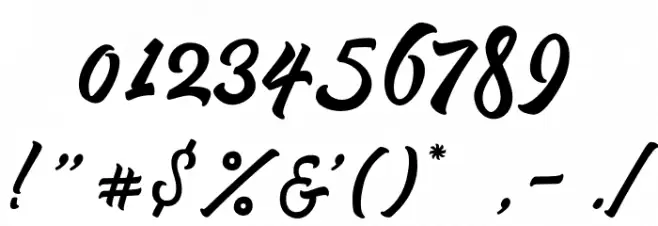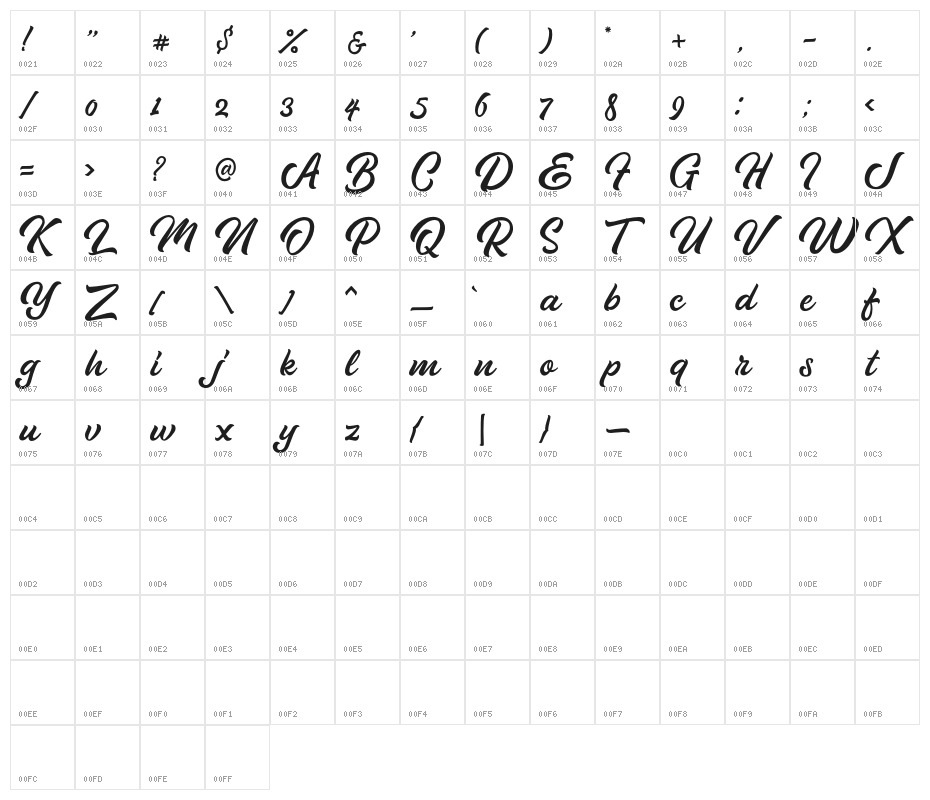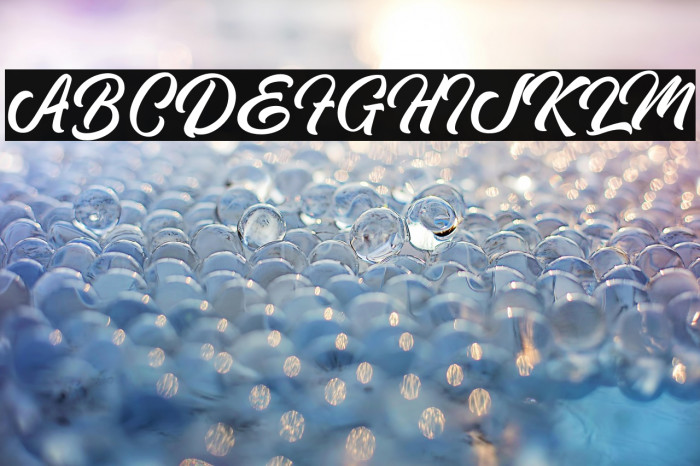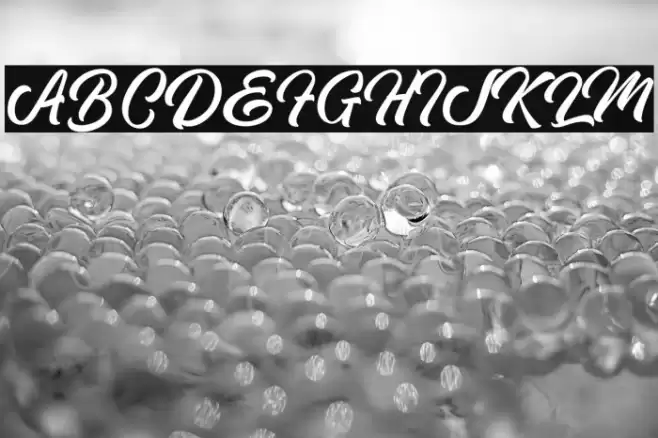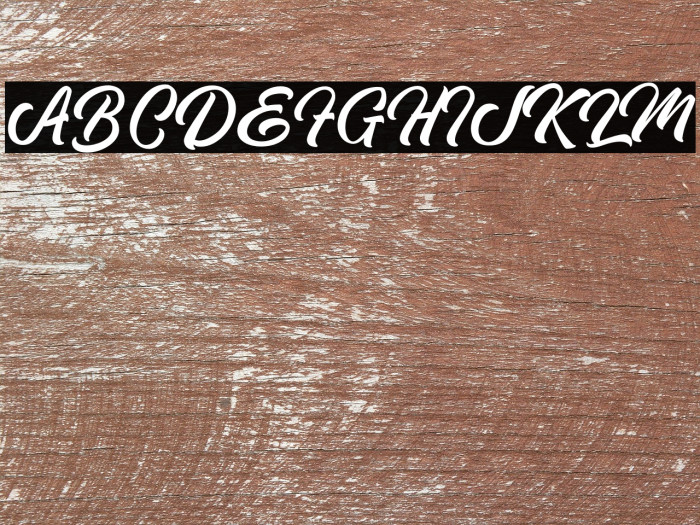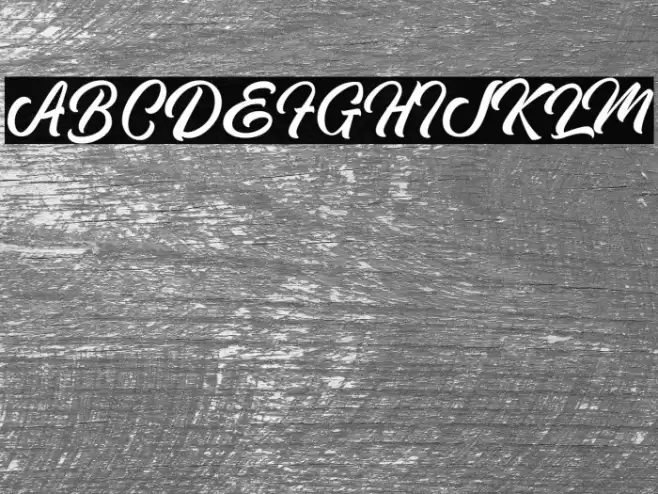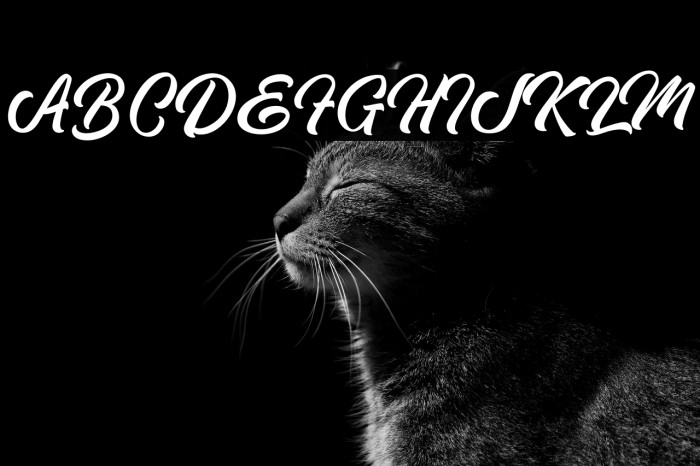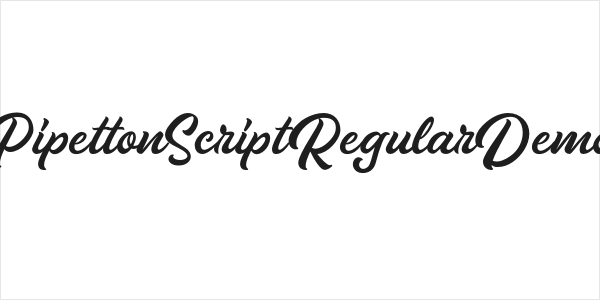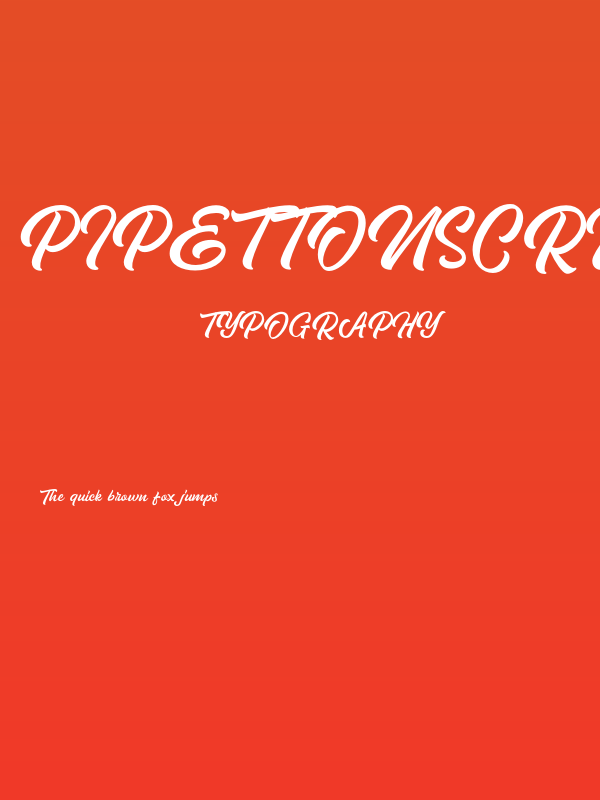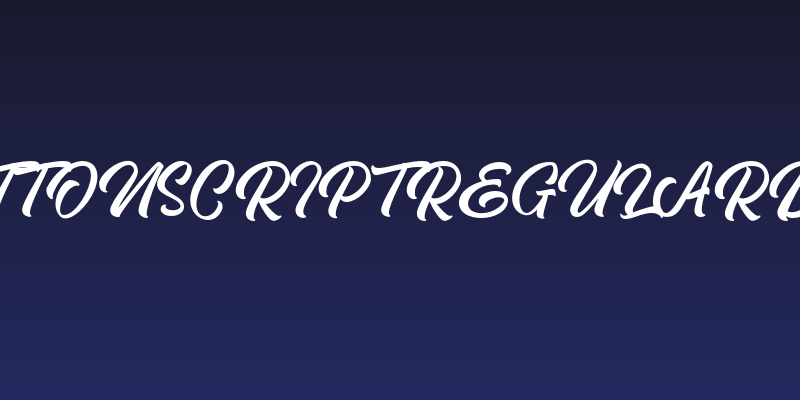
PipettonScriptRegularDemo Font
PipettonScriptRegularDemo Description
This elegant script font features a flowing, cursive style with smooth, interconnected letters that evoke a sense of sophistication and grace. The uppercase letters are bold and slightly slanted, while the lowercase letters maintain a consistent rhythm and fluidity. The numerals are designed with a similar flair, ensuring a cohesive look across all characters. The special characters are crafted to match the overall aesthetic, making this font ideal for projects that require a touch of elegance and style.
| Overall Style | Elegant, Sophisticated |
| Proposed Projects | Ideal for wedding invitations, elegant branding, greeting cards, and upscale packaging. |